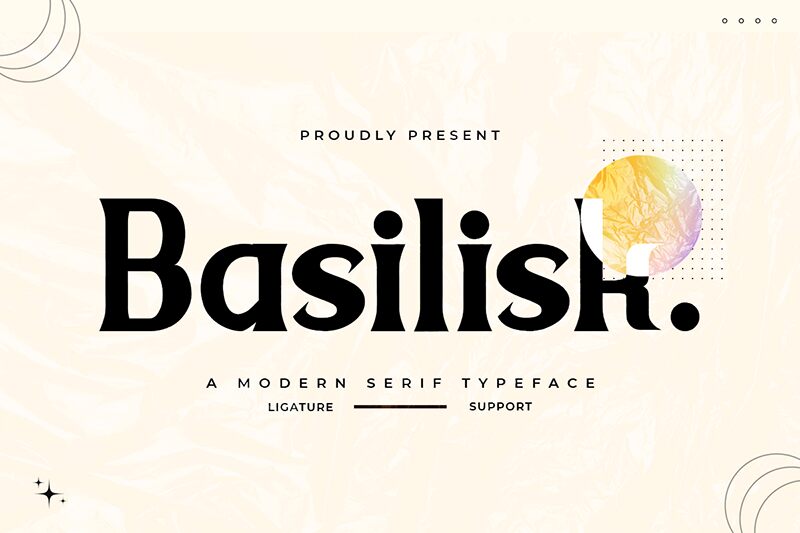
Basilisk font by Kong Font is a free serif font that captivates with its modern elegance and sophisticated curves. The design seamlessly combines smooth lines with a contemporary appeal, creating an intelligent and refined look suitable for the most exquisite projects.
Use it in magazines, books, business cards, brochures, signage, logos, labels, website headers, certificates. Outfit presentation templates and elevate branding identities for financial businesses using this stunning resource.